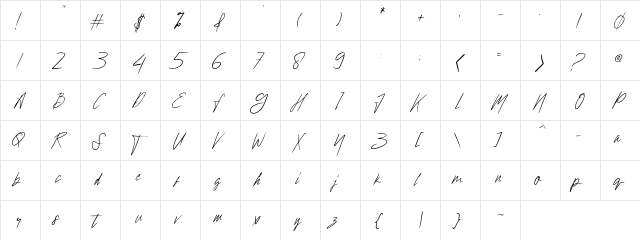
Hollywise Regular
| Foundry | Stringlab |
| Designer | Stringlab |
Design Context for Hollywise Typeface
Hollywise is a composed and adaptable typeface that performs quietly and consistently across a wide range of design contexts.